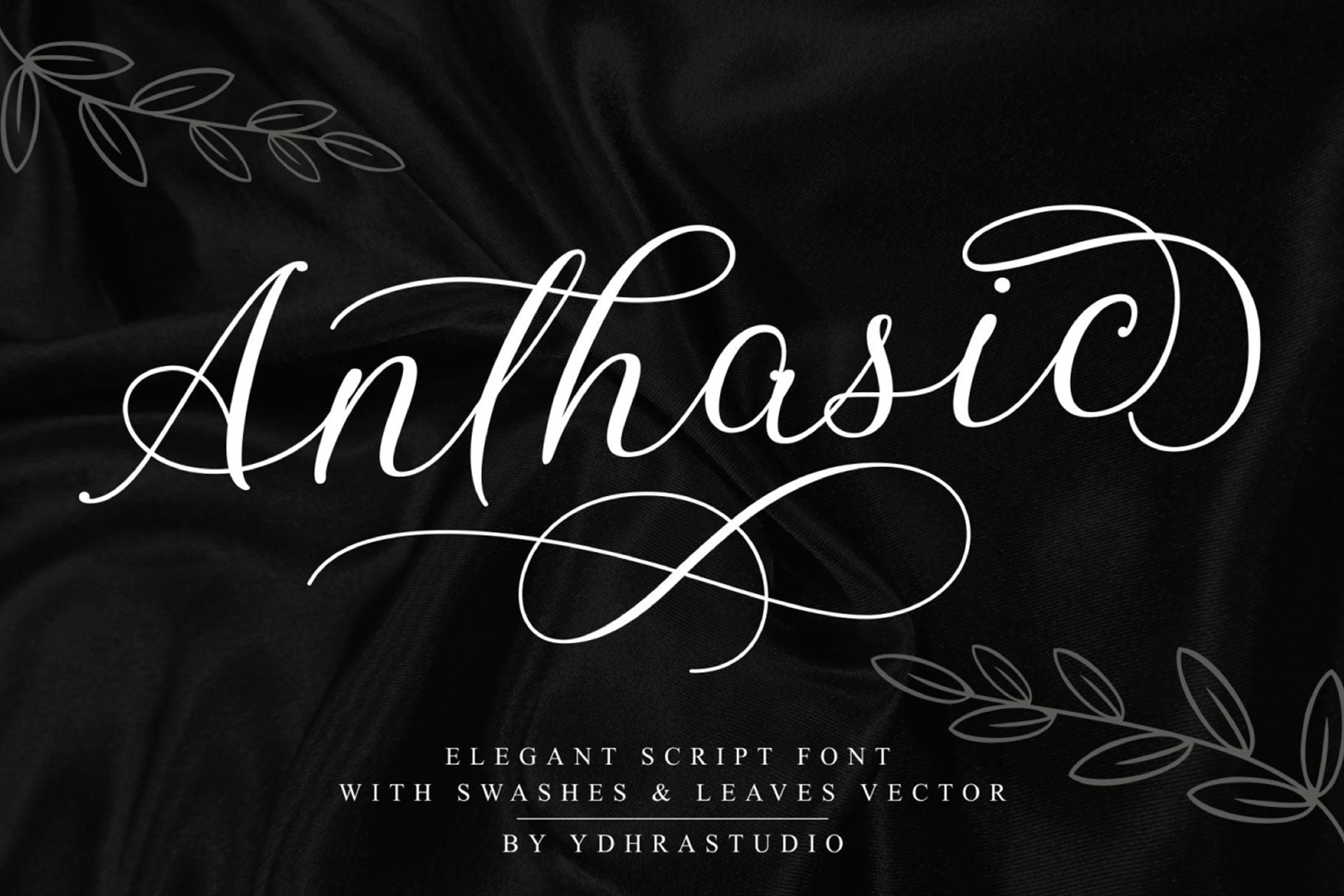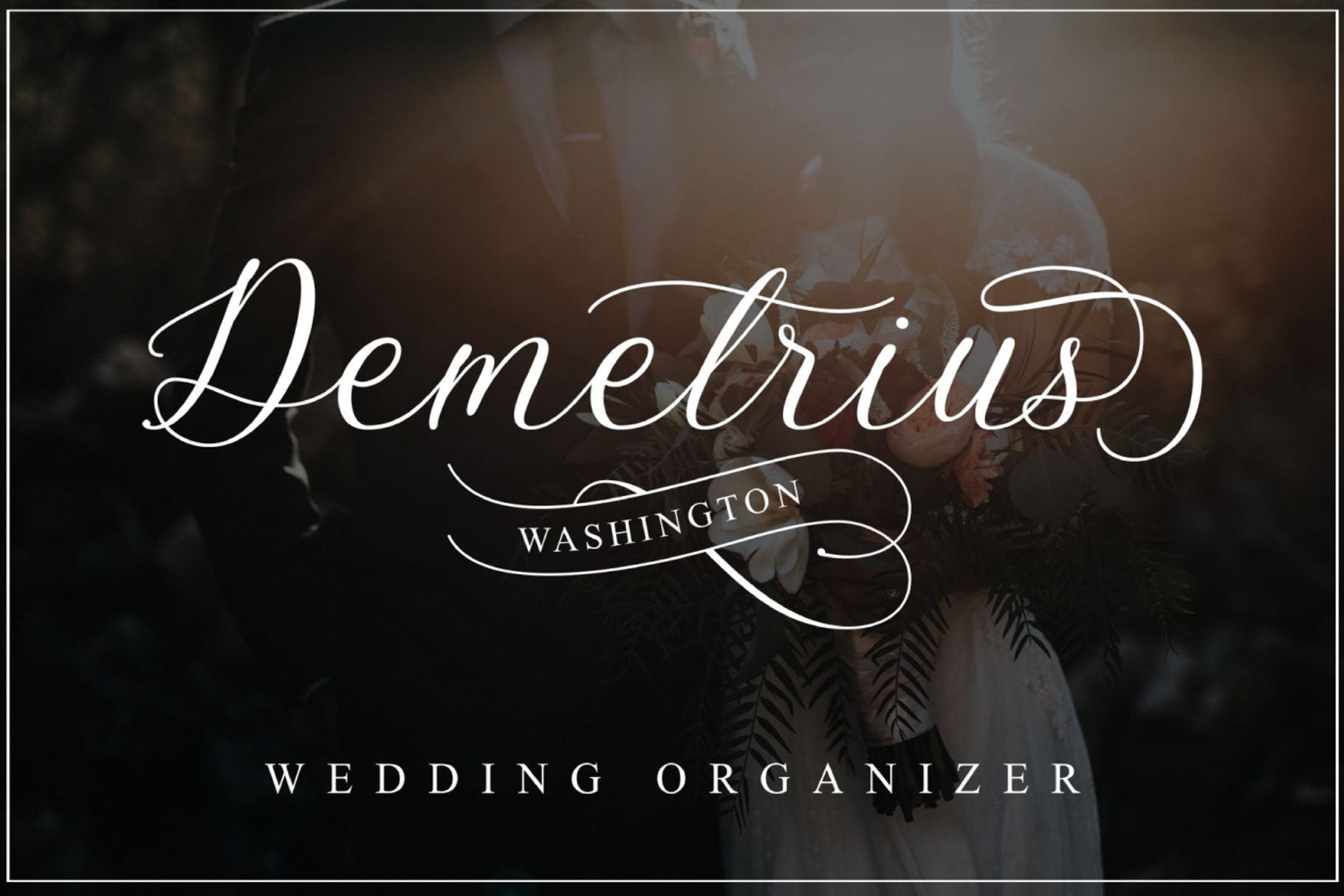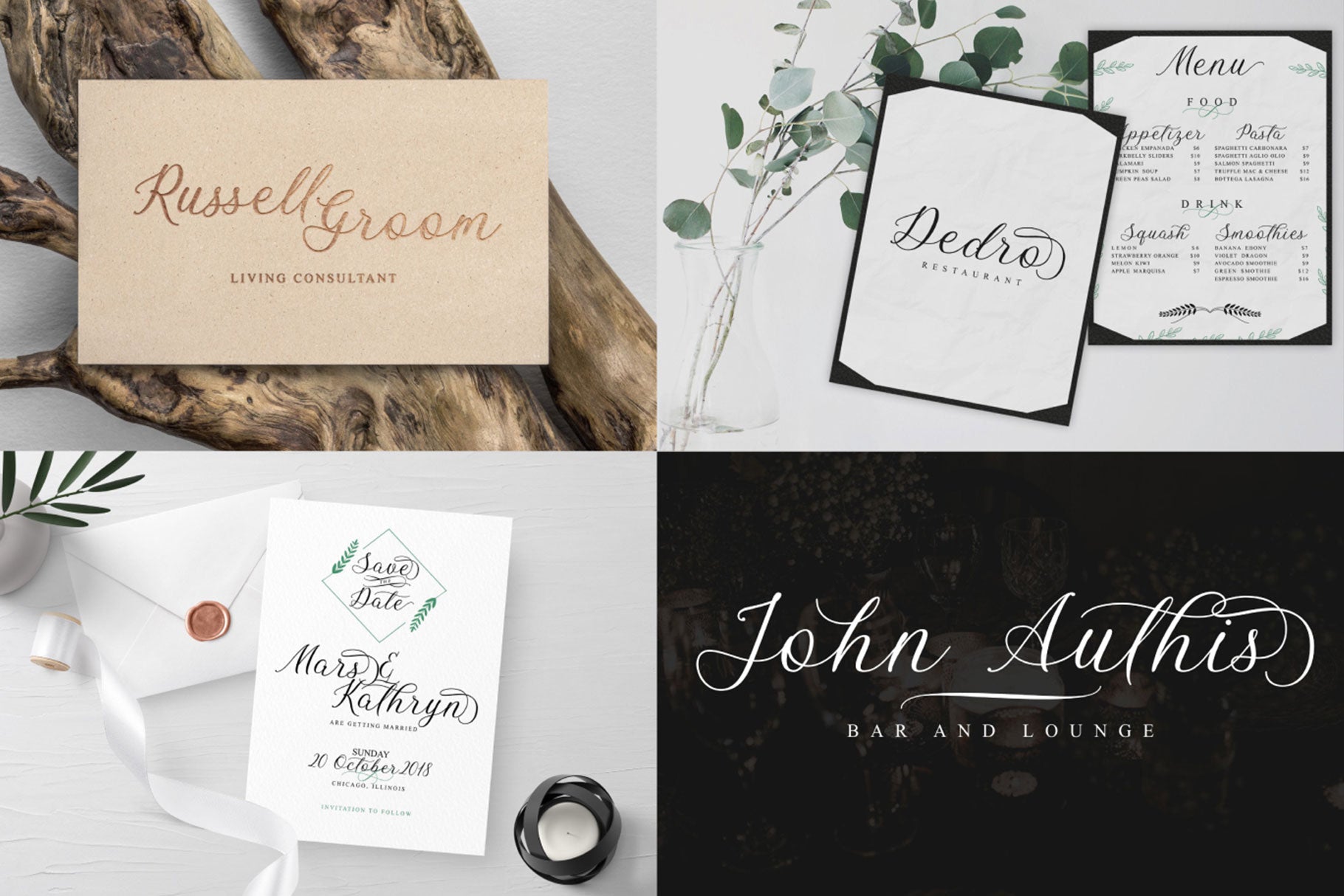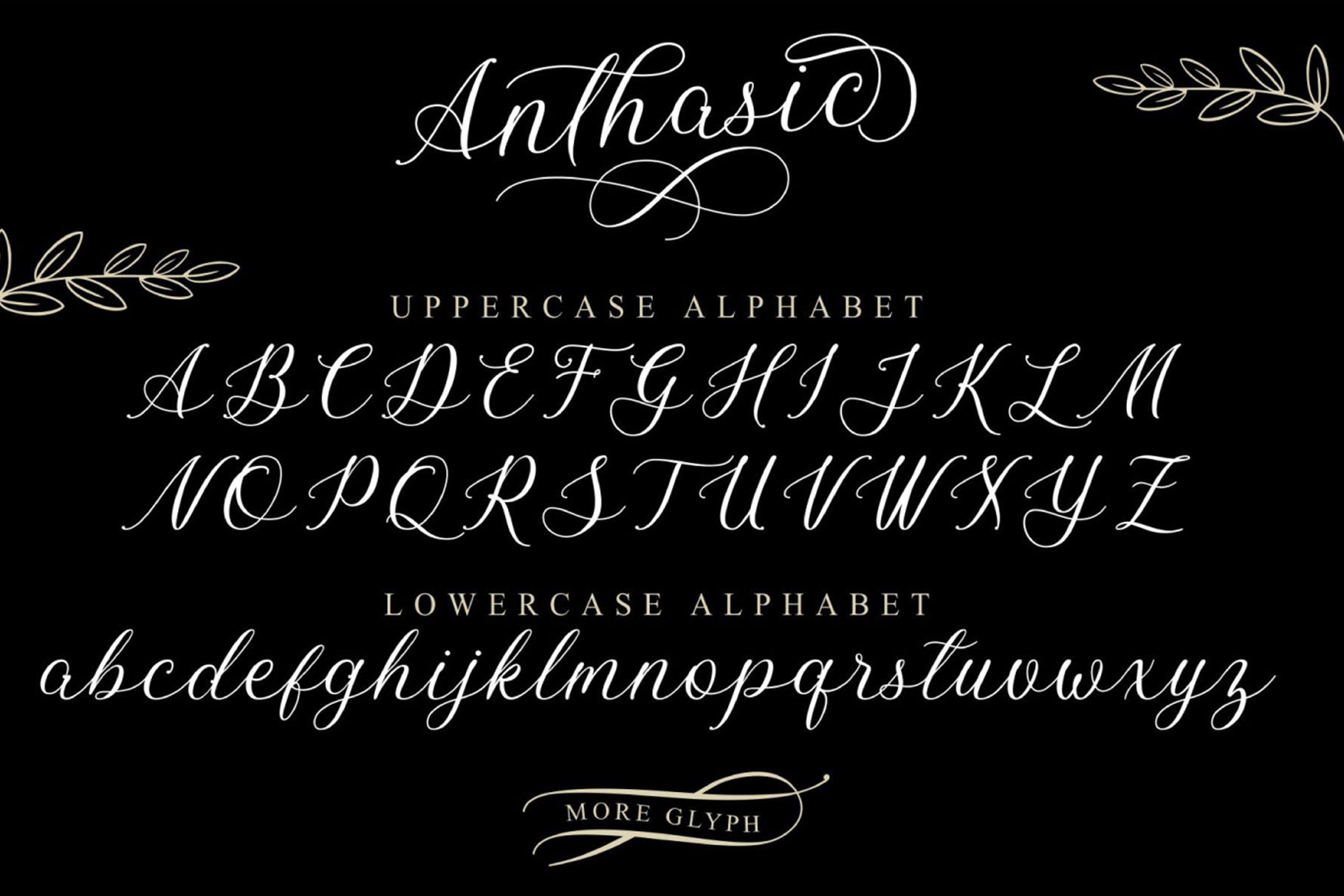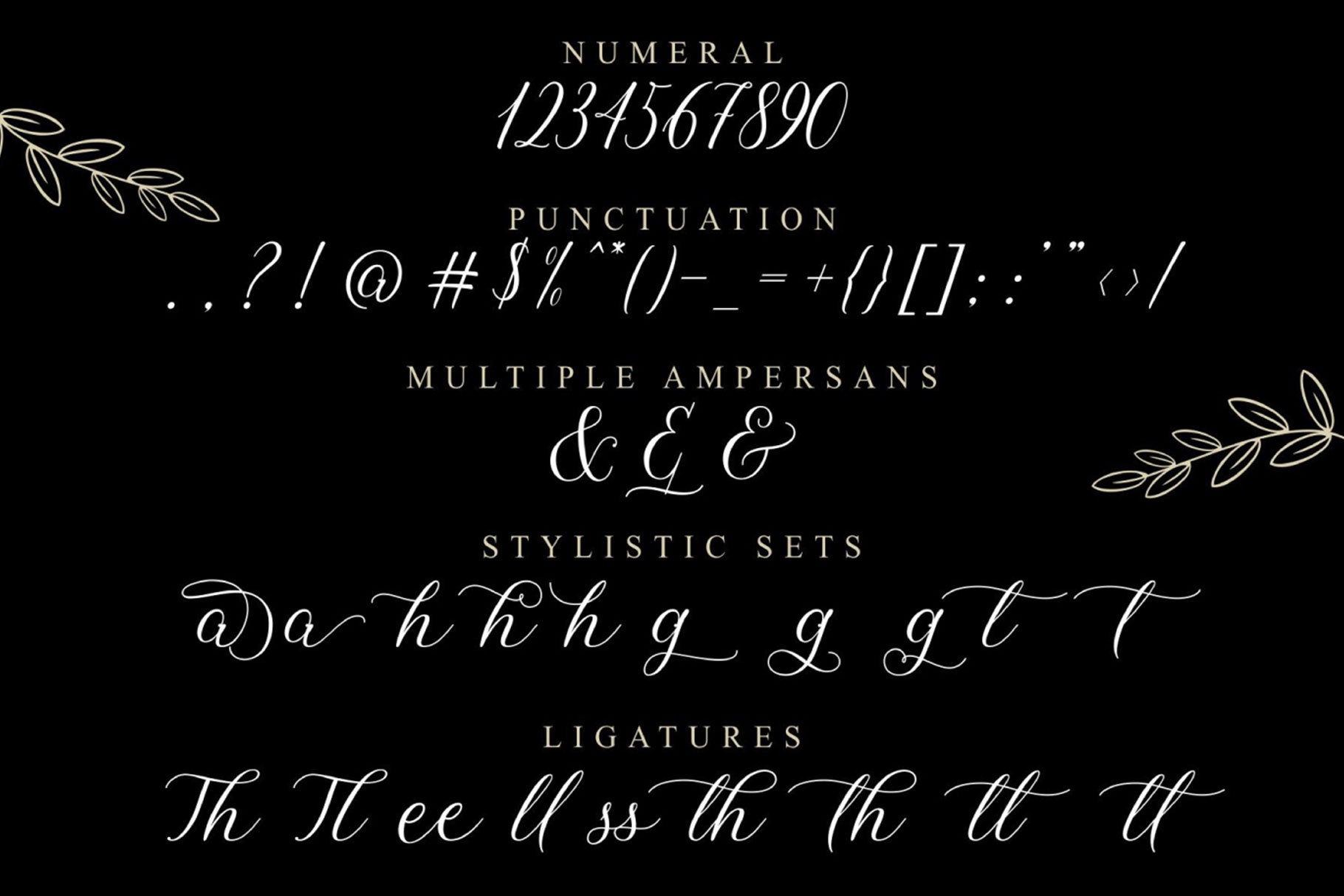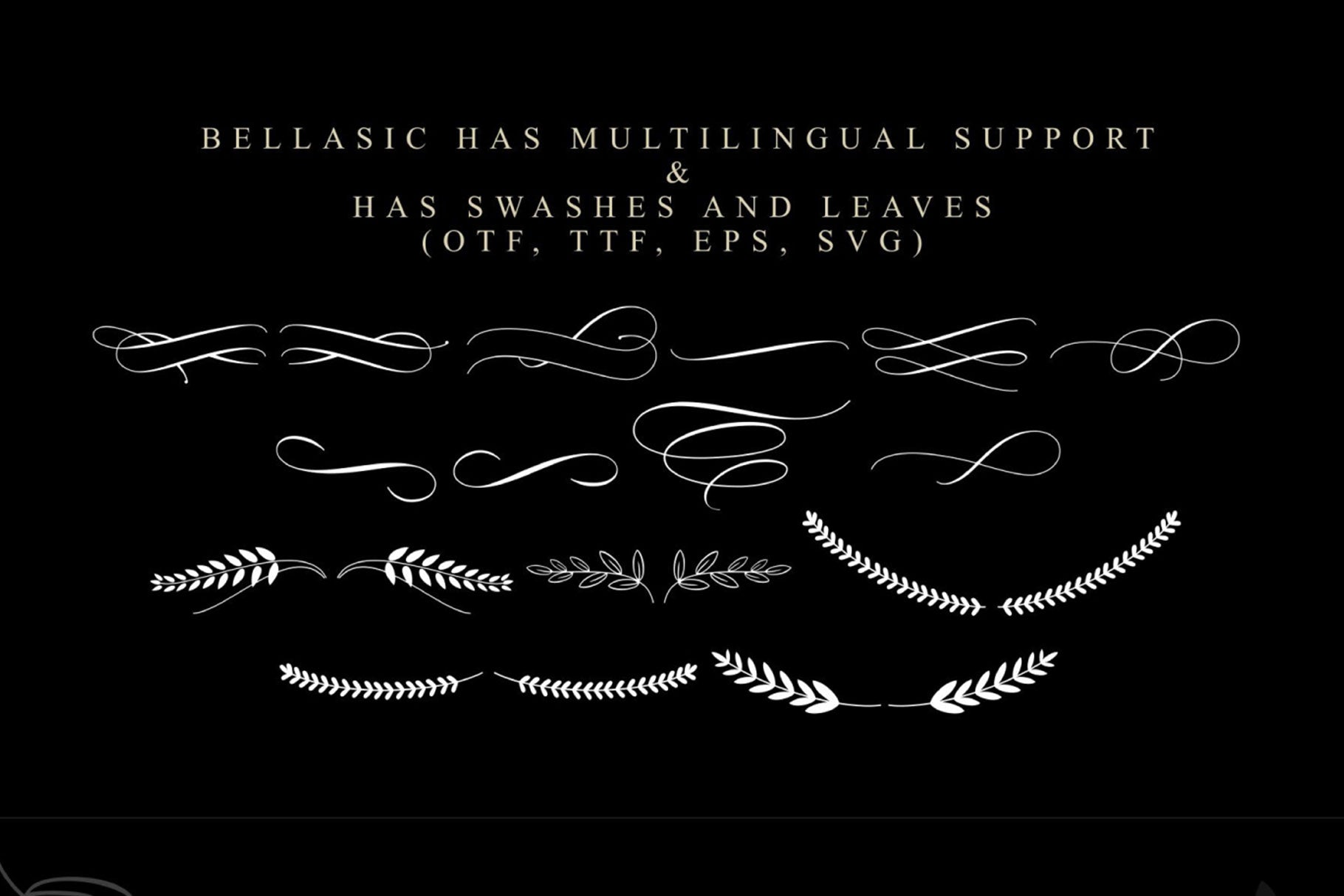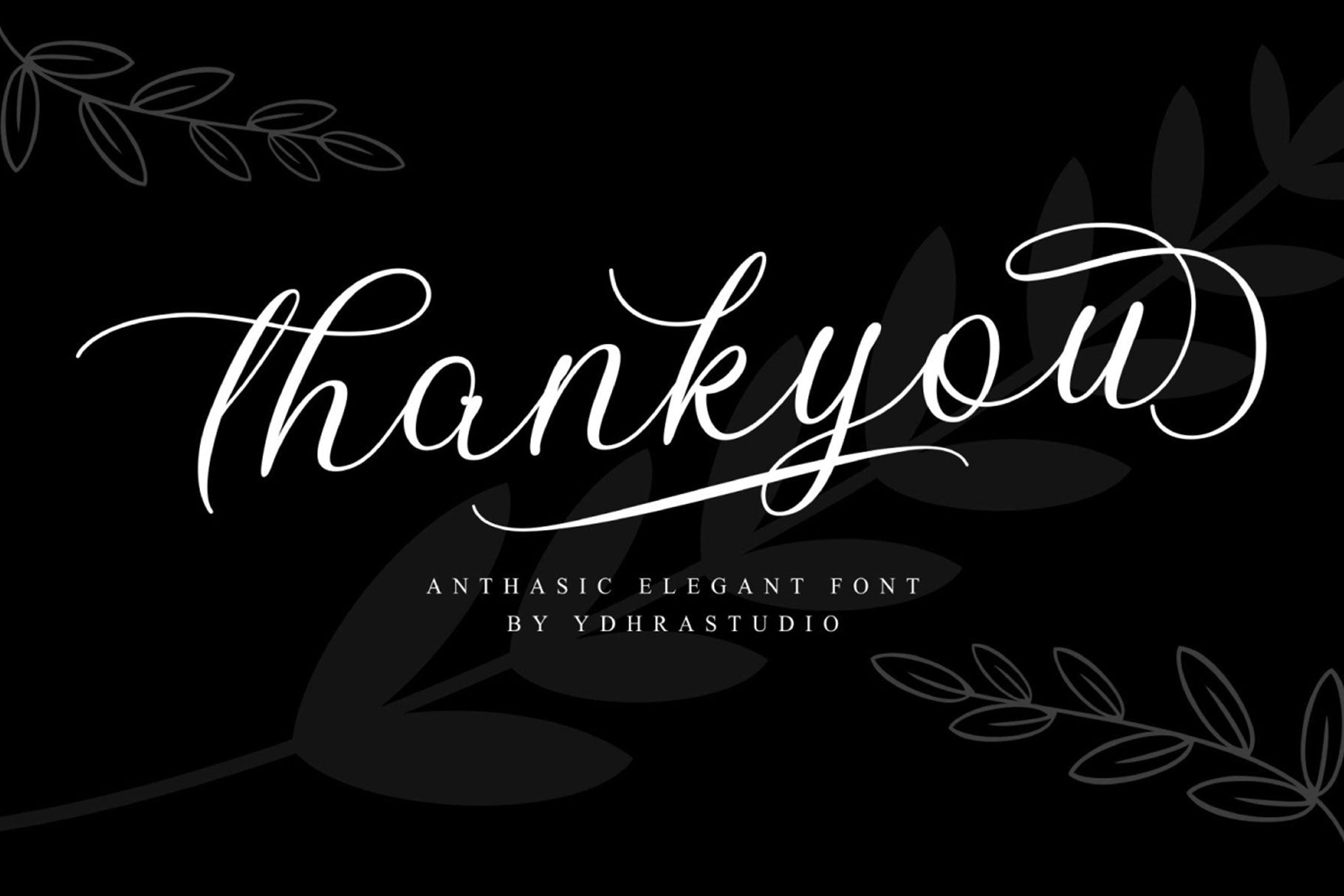
Anthasic Elegant Script Font, from YdhraStudio, is perfect for those of you who are needing a touch of elegance and modernity for your designs, this font was created for you!